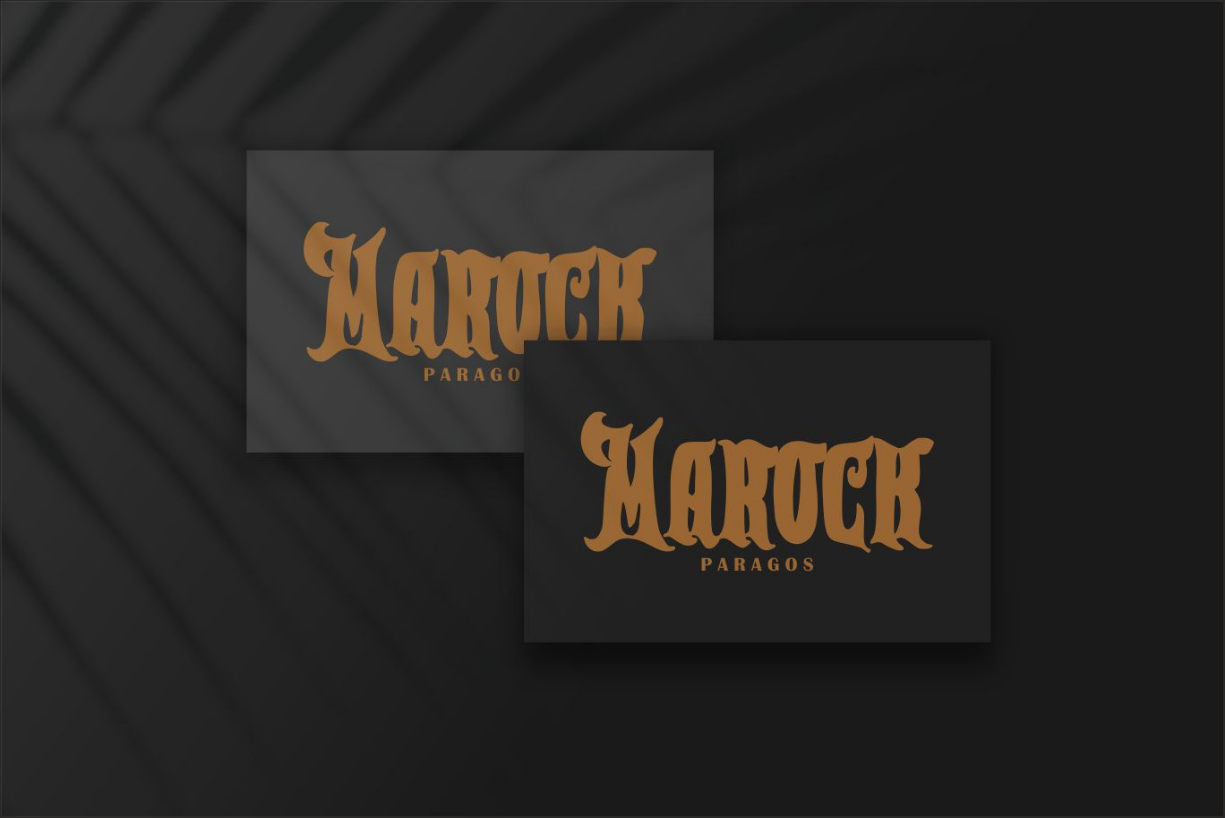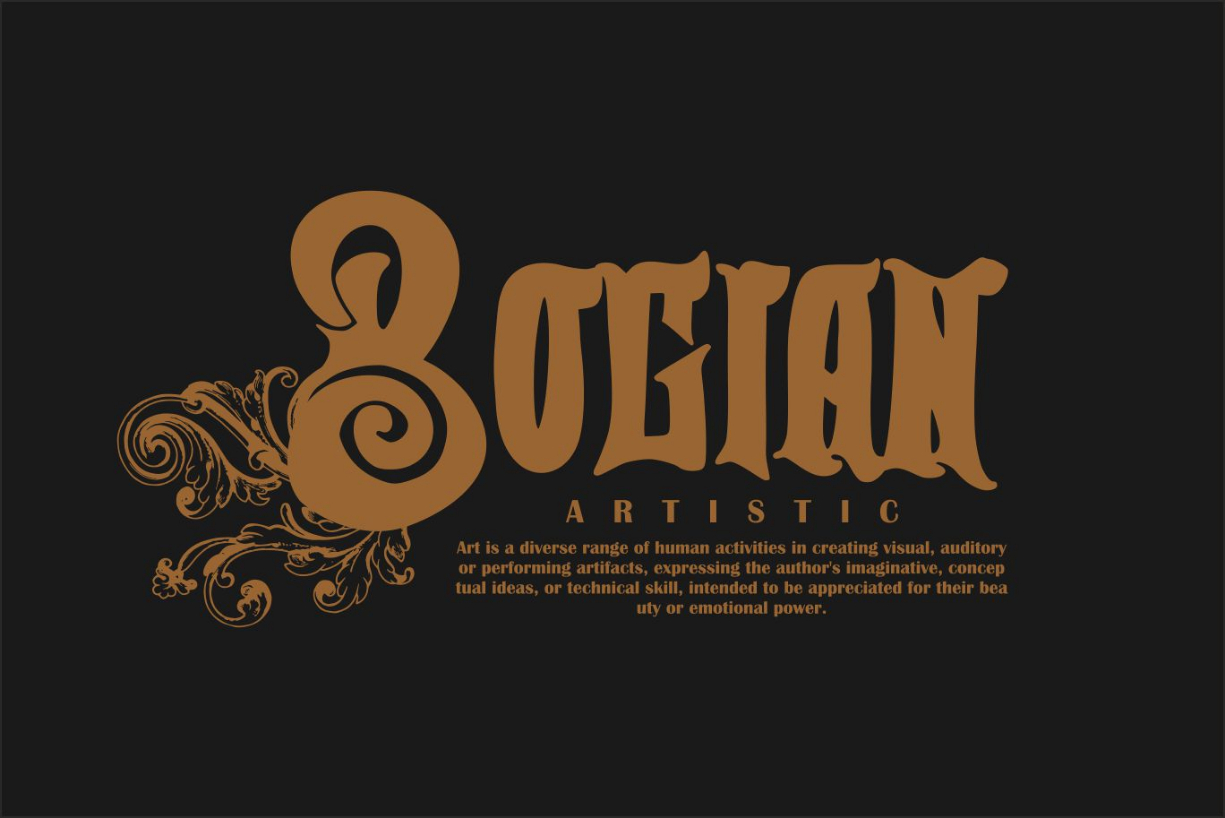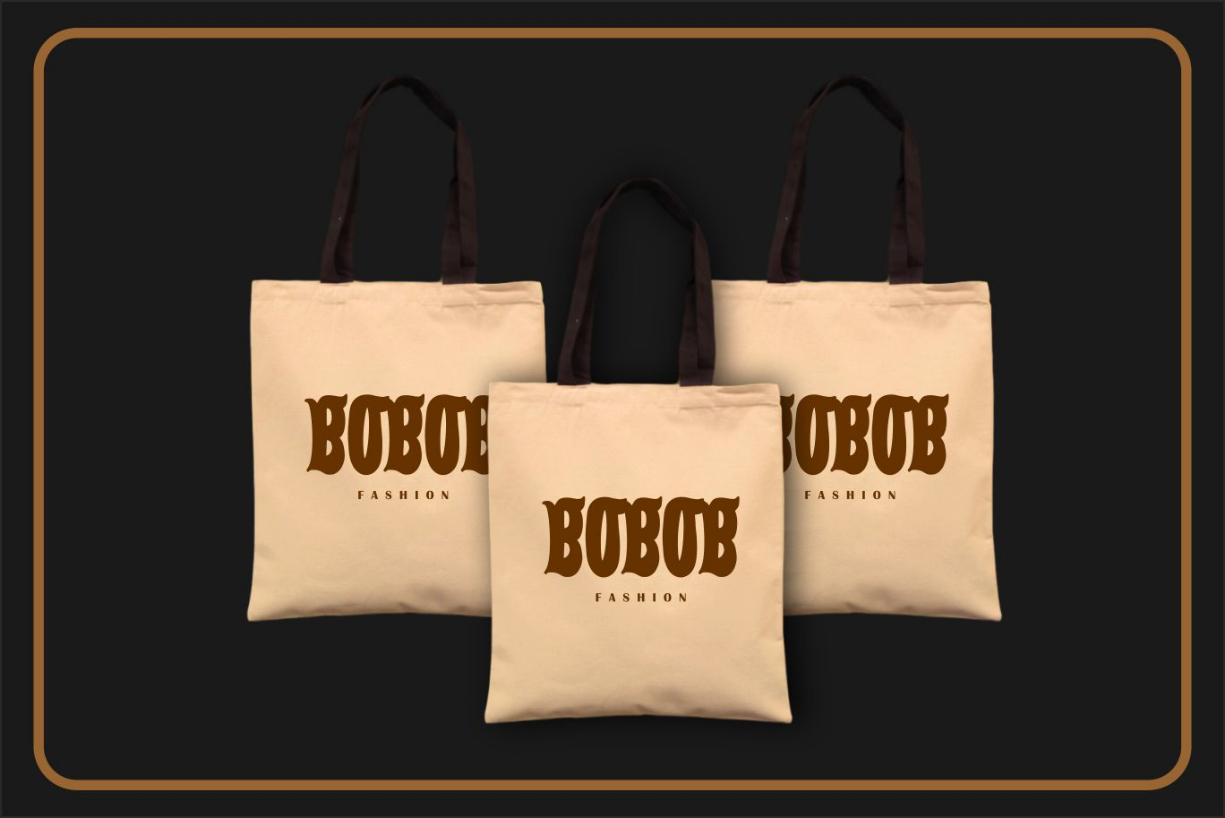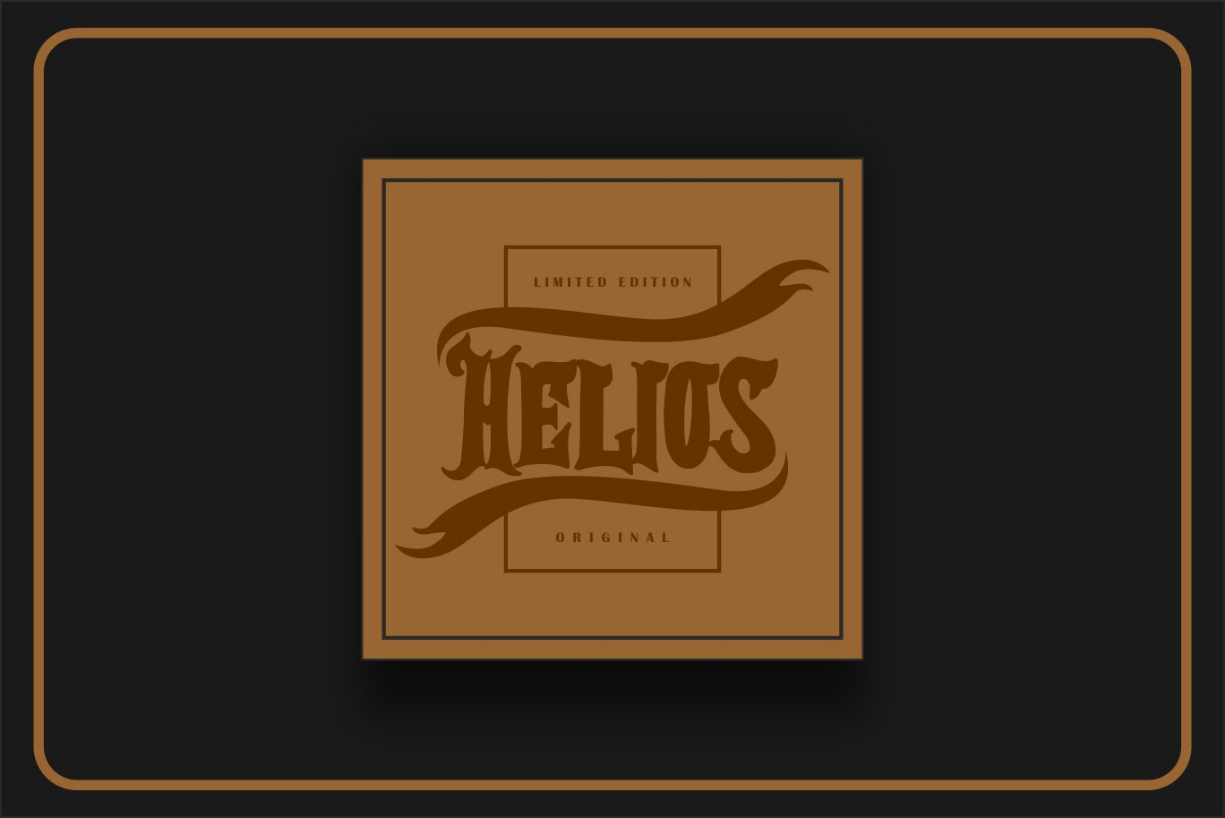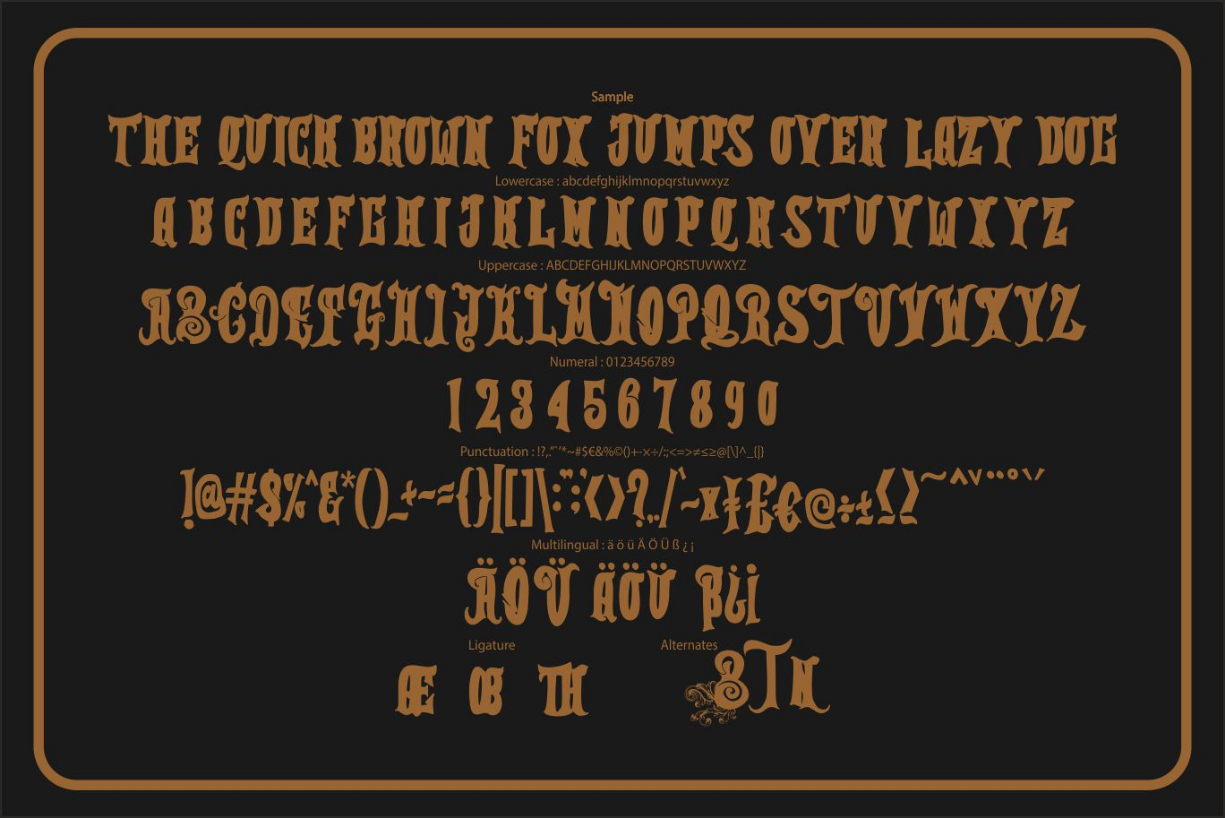
Thetian Font
About Thetian Font
Thetian is an incredibly unique and interesting blackletter font. Add it to your creative ideas and notice how it makes them stand out.